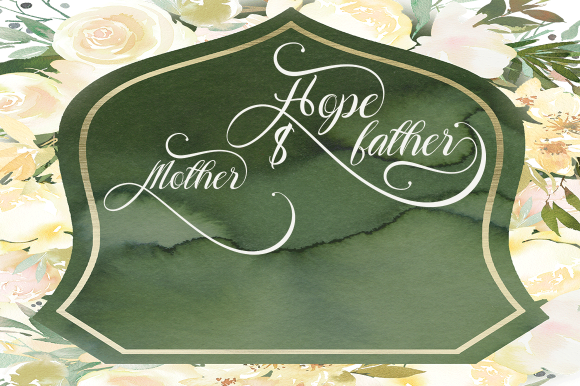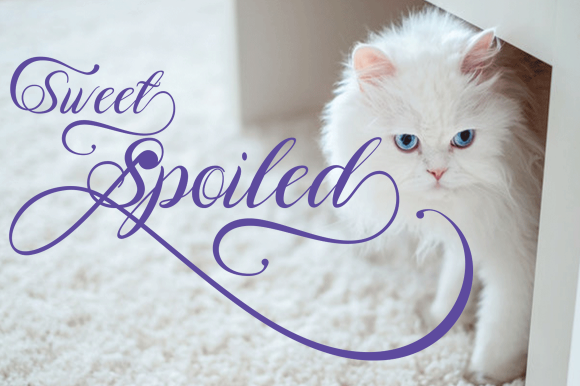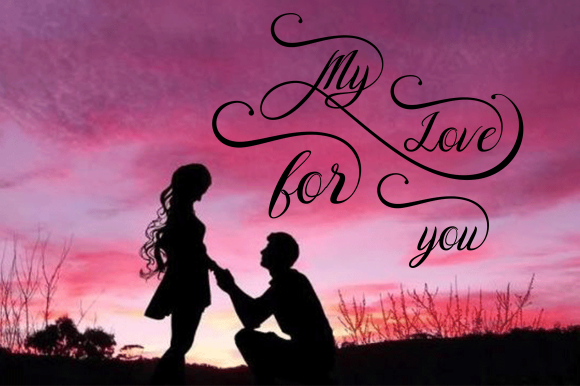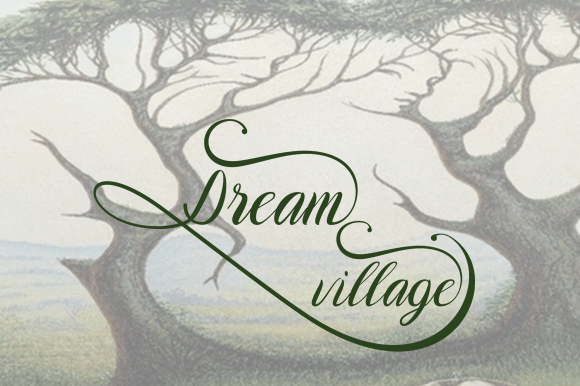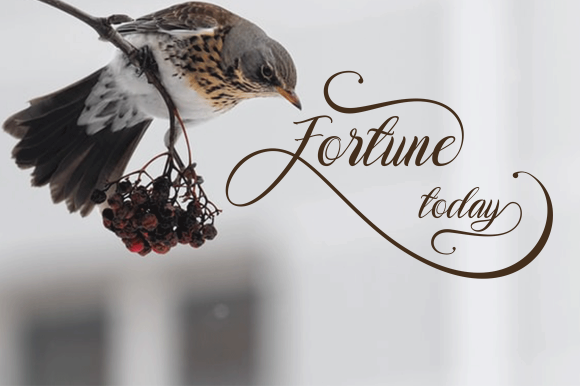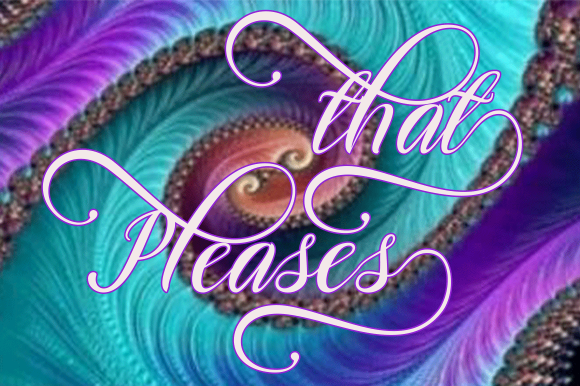
Discover the Elegance of Augustine Font: A Perfect Choice for Creative Designs
In the world of typography, fonts play a crucial role in bringing creative ideas to life. Among the numerous fonts available, the Augustine Font stands out for its smooth and elegant handwritten style. This beautiful font is perfect for designers and crafters looking to add a touch of sophistication to their designs. In this article, we’ll explore the features and benefits of the Augustine Font, and why it’s a great choice for a wide variety of design projects.
A Smooth and Elegant Handwritten Font
Augustine Font is a stunning handwritten font that exudes elegance and refinement. Its smooth lines and flowing curves make it perfect for designs that require a touch of sophistication. Whether you’re working on a branding project, a wedding invitation, or a packaging design, this font is sure to impress. The font’s elegant style is versatile enough to be used in various design contexts, from formal to informal.
A Lovely Touch of Character
One of the standout features of the Augustine Font is its lovely touch of character. The font has a unique personality that sets it apart from other fonts. Its distinctive style is perfect for designers who want to add a personal touch to their designs. With Augustine Font, you can create designs that are not only visually appealing but also memorable.
Perfect for a Wide Variety of Designs
Augustine Font is a versatile font that can be used in a wide range of design projects. Its elegant style makes it perfect for:
- Branding and logo design
- Packaging design and product labels
- Web design and digital media
Augustine Font is PUA (Private Use Area) encoded, which means you can access all the glyphs and swashes with ease. PUA encoding allows designers to access additional characters and features that are not available in standard fonts. This feature makes it easy to customize your designs and add unique touches.
Augustine Font offers numerous benefits for designers and crafters, including:
- Elegant and sophisticated design
- Unique and memorable style
- Versatile and adaptable
- PUA encoded for access to additional characters and features
Tips for Using Augustine Font
Here are some tips for using Augustine Font in your designs:
- Use it as a headline font to add a touch of elegance
- Pair it with a sans-serif font for a contrasting look
- Experiment with different colors and textures to add depth
- Use it consistently across your design to create a cohesive look
Augustine Font is a beautiful and elegant handwritten font that’s perfect for designers and crafters looking to add a touch of sophistication to their designs. Its smooth lines, flowing curves, and unique character make it a standout font that’s sure to impress. With its PUA encoding and versatility, Augustine Font is a great choice for a wide variety of design projects. So why not give it a try and see how it can elevate your designs?